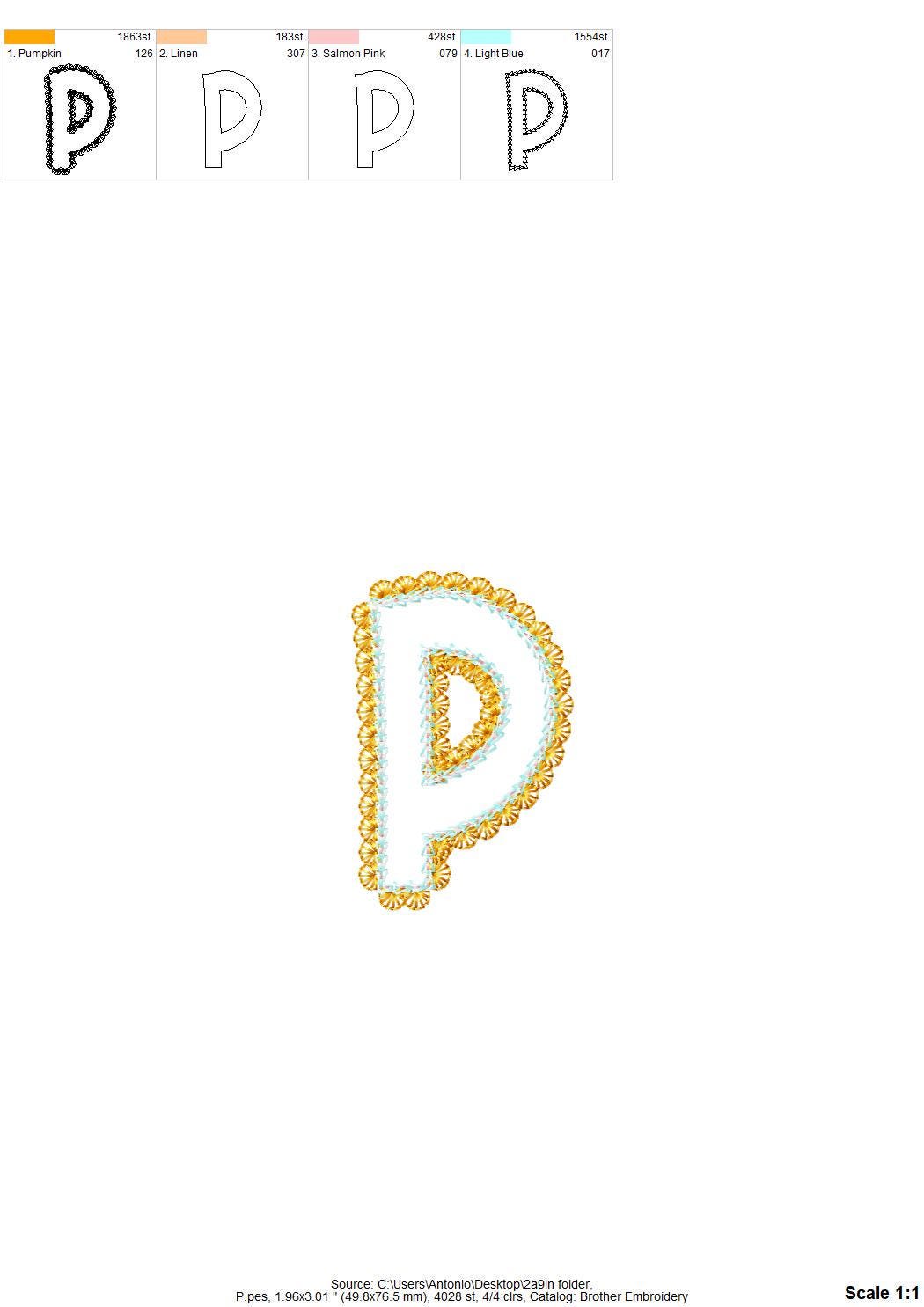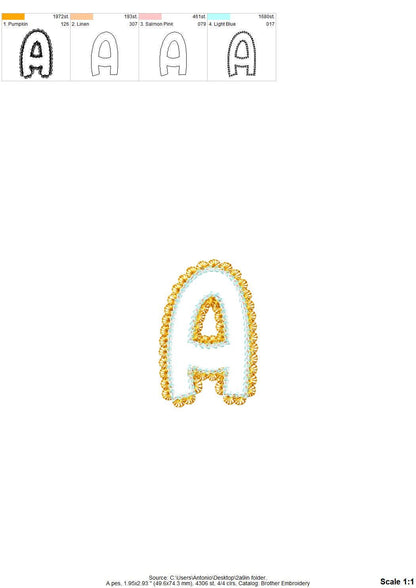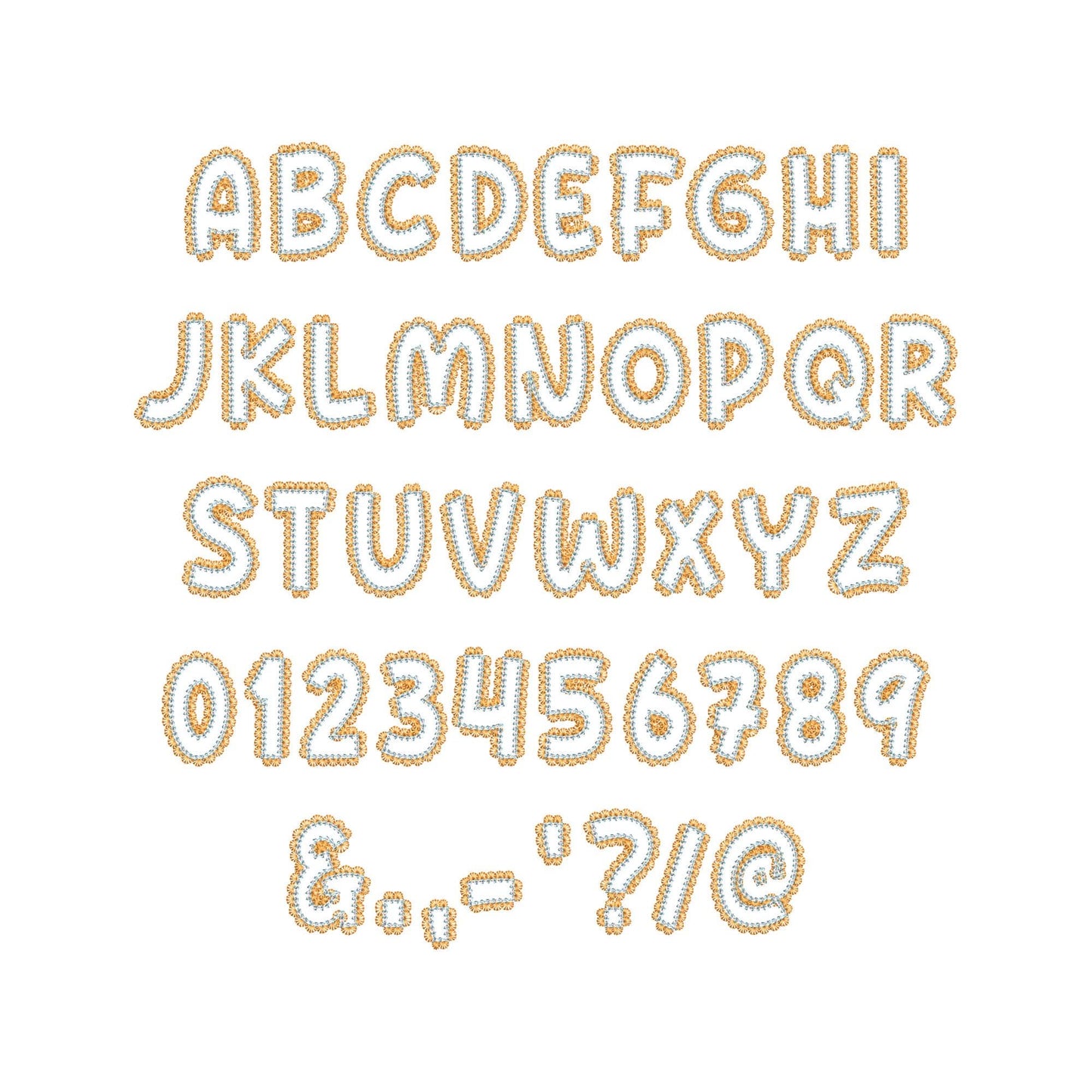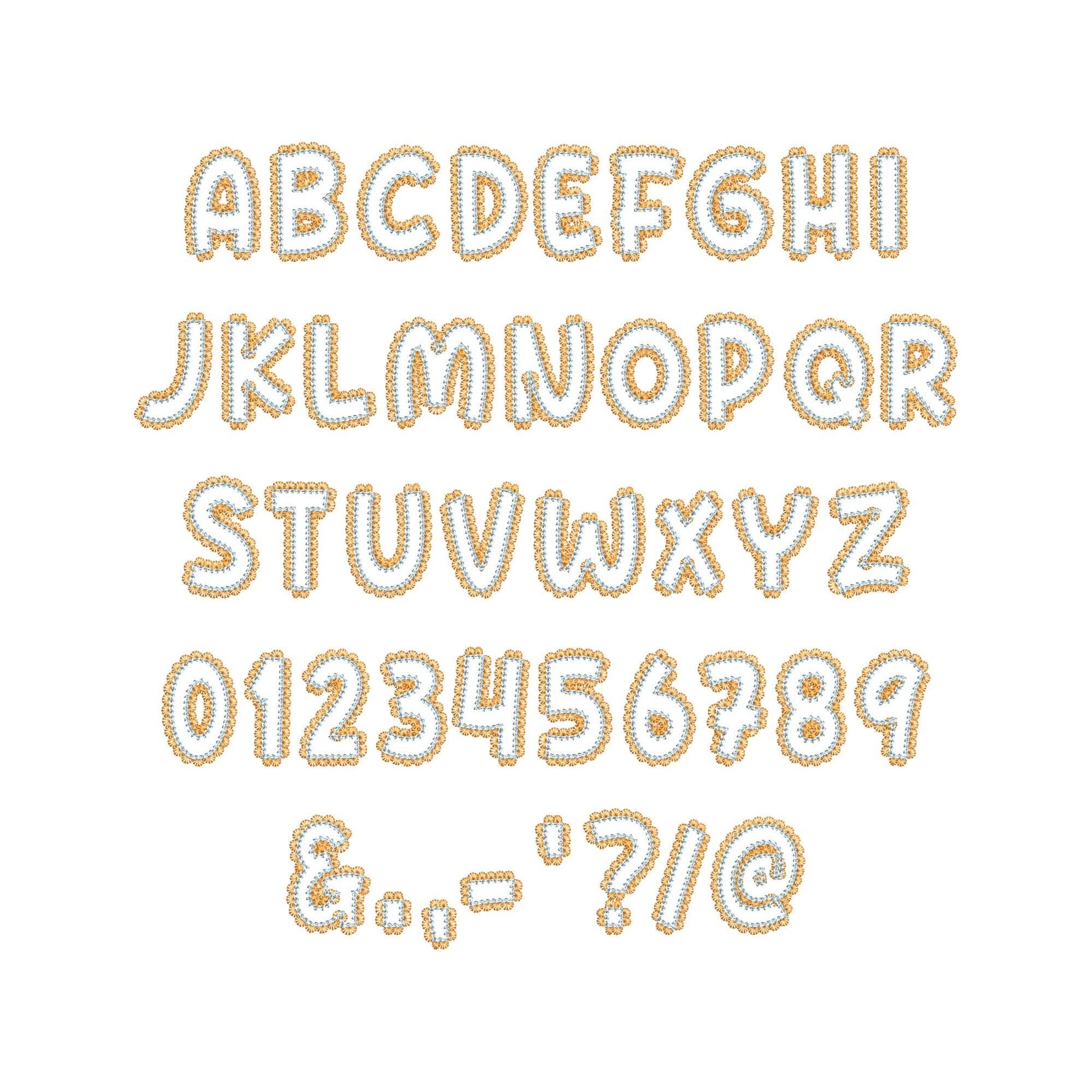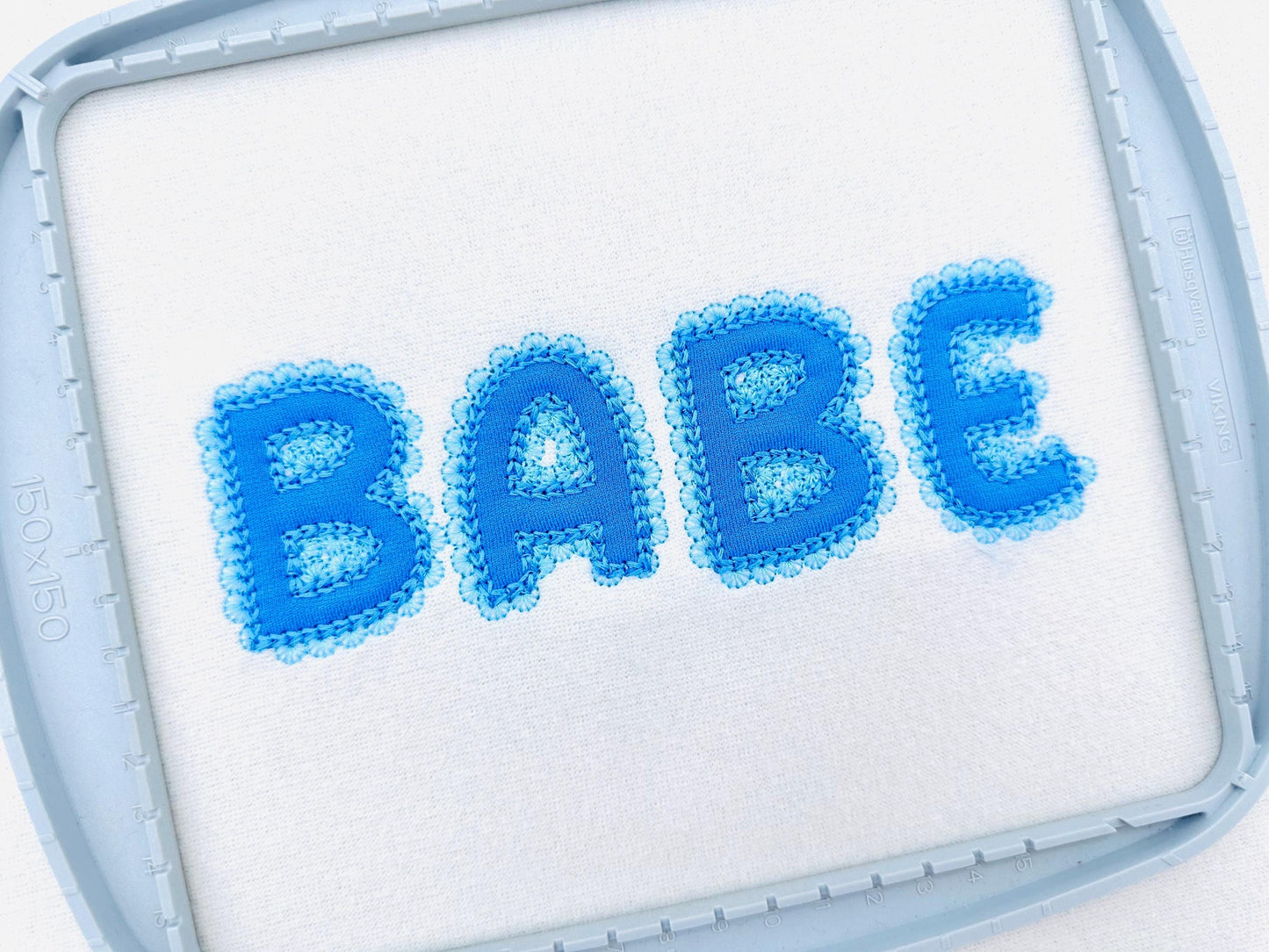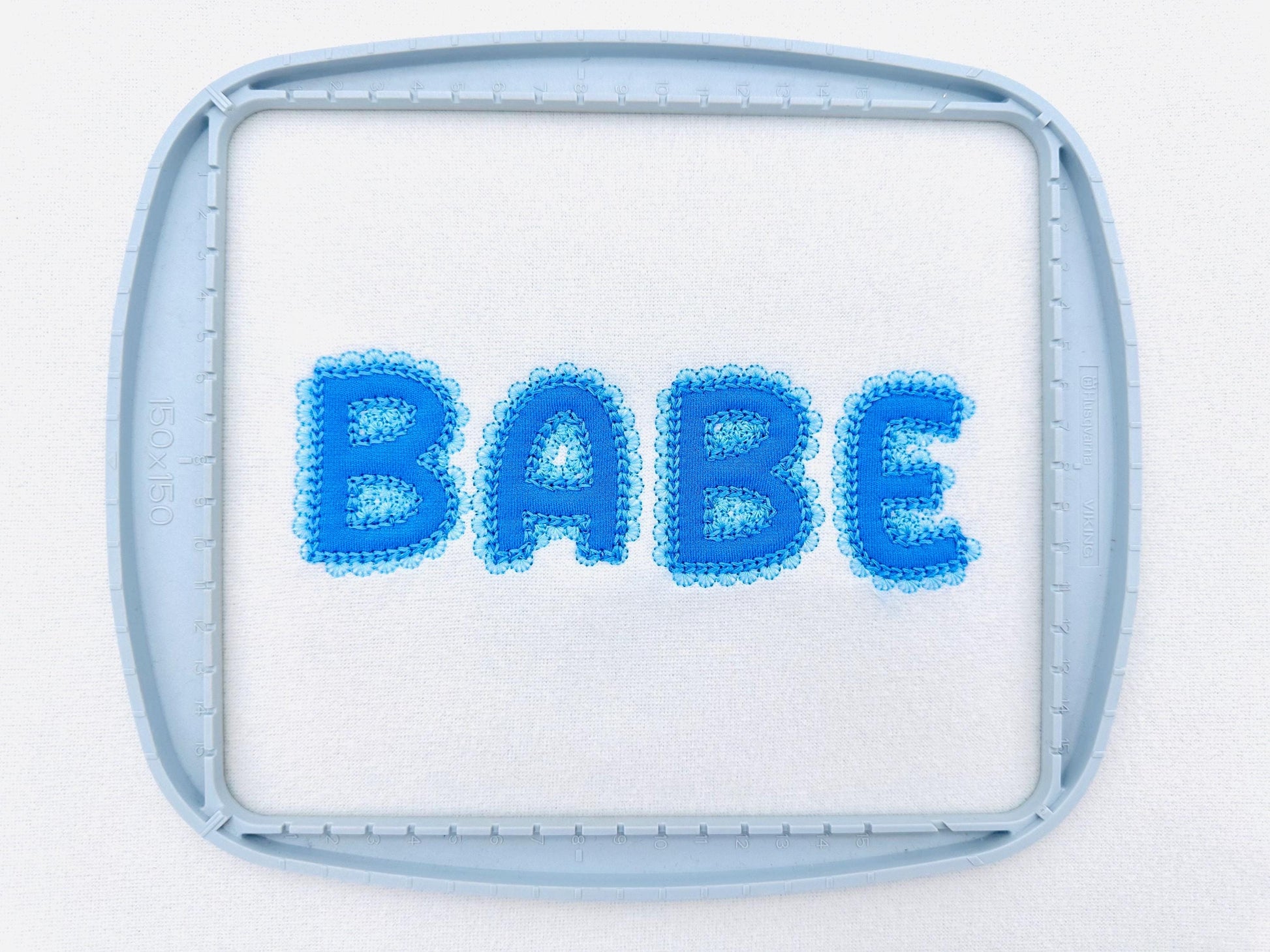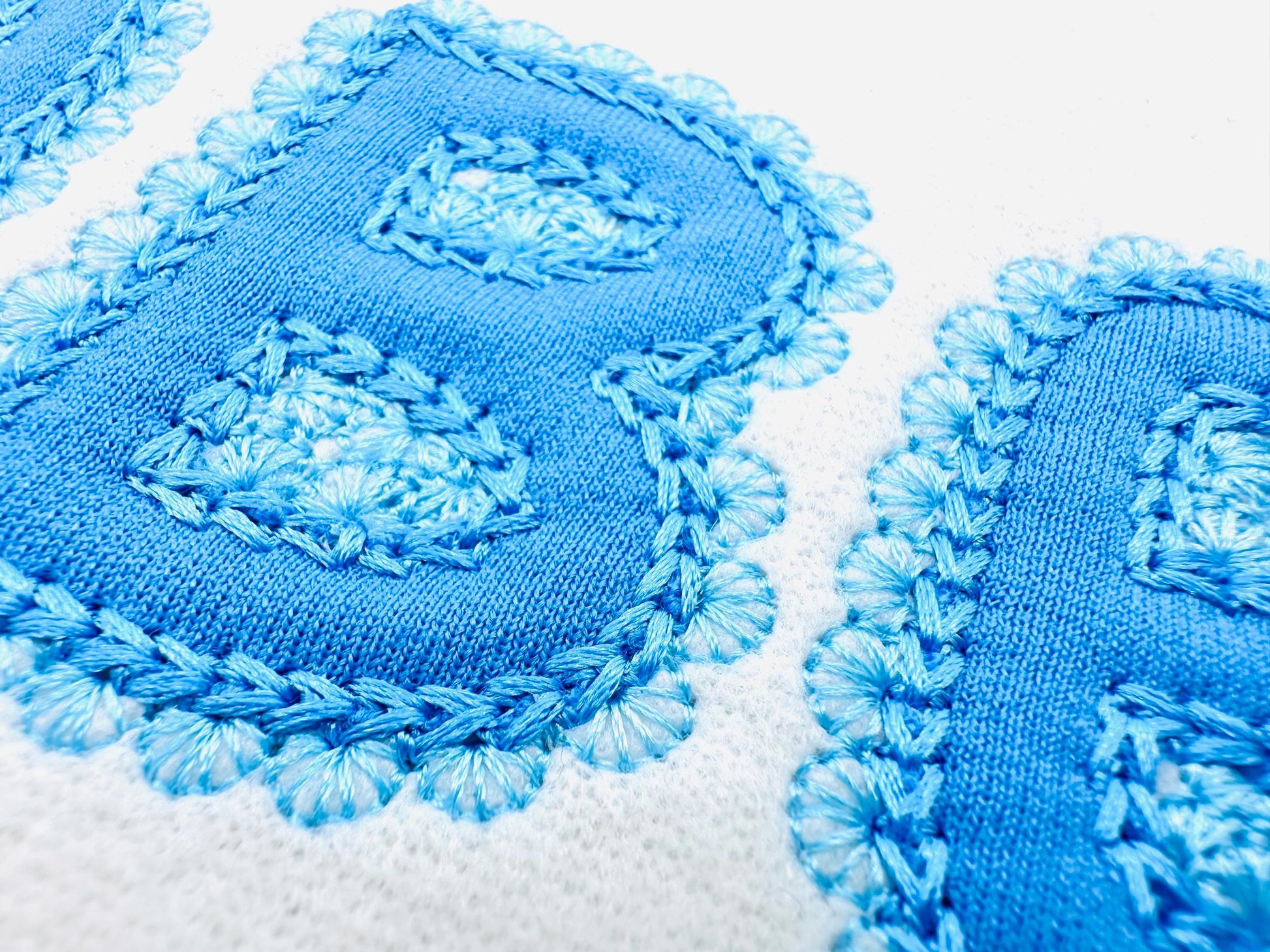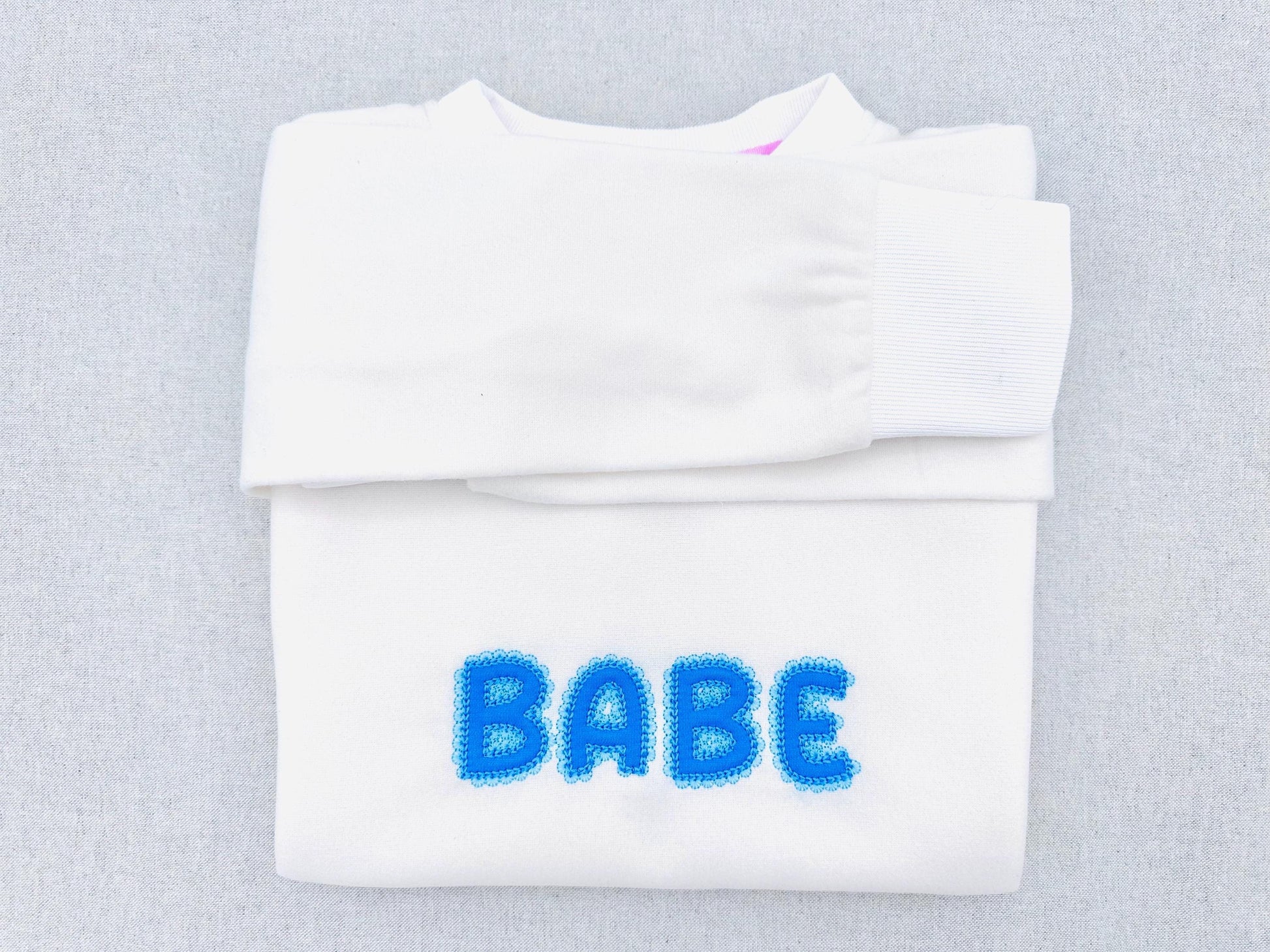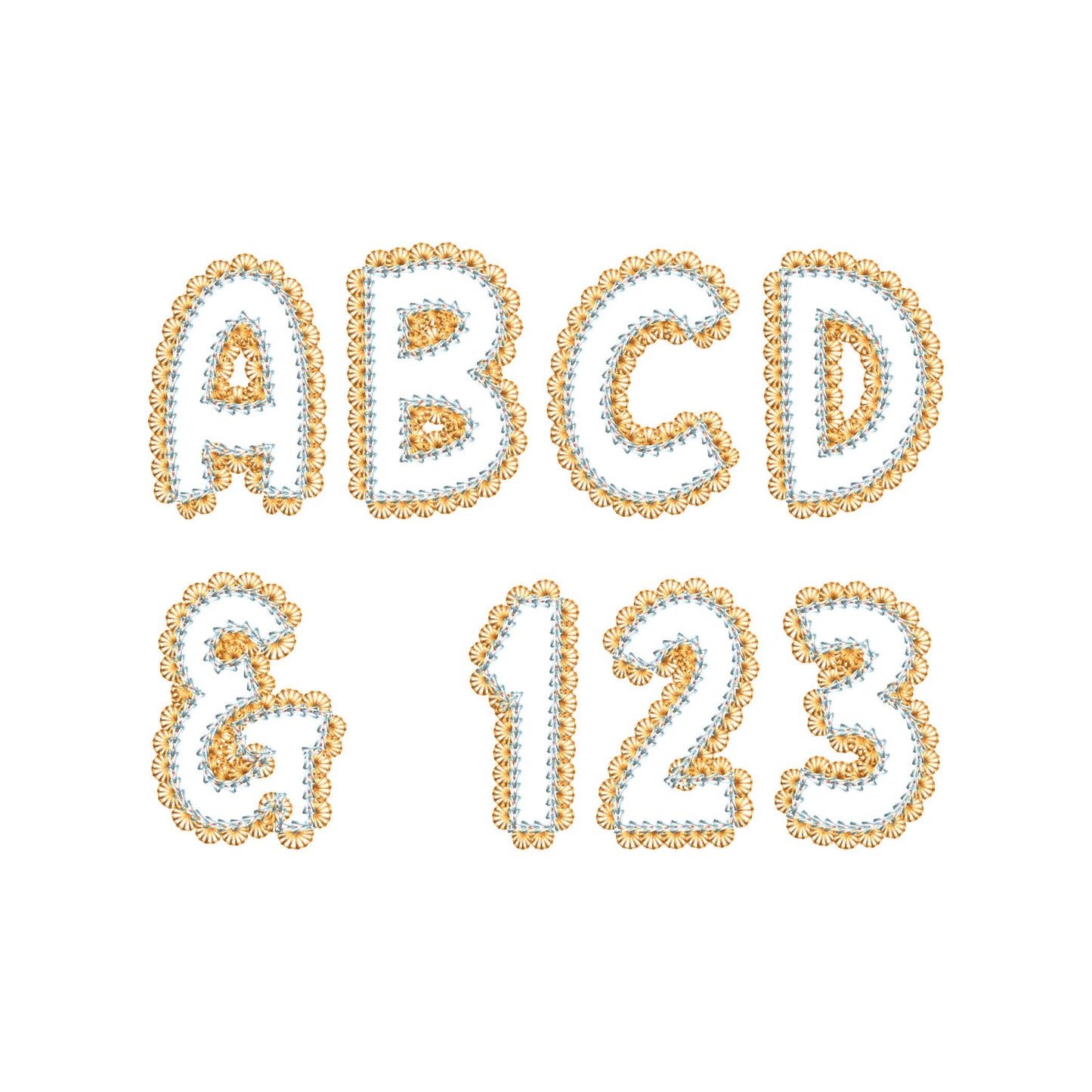
Lace Edge applique Chain stitch outline
Or click to open the linkAn applique font with a lace trim edge and a chain stitch outline. Pretty for girls' names, monograms and sweet gifts.
The letters come in four sizes: 1.7, 2.4, 2.9 and 4.3 inches. Applique letters outlined in chain stitch, with a lace edge that lets the fabric show through. Includes uppercase letters A to Z, numbers 0 to 9 and punctuation.
- Lace edge applique font, chain stitch outline
- Uppercase A to Z, numbers 0 to 9, punctuation